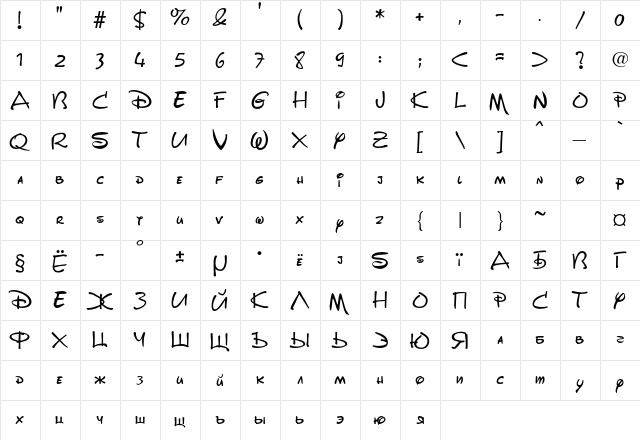
DS DisneyParkC Regular
Design Context for DS DisneyParkC Typeface
DS DisneyParkC is a composed and adaptable typeface that performs quietly and consistently across a wide range of design contexts.